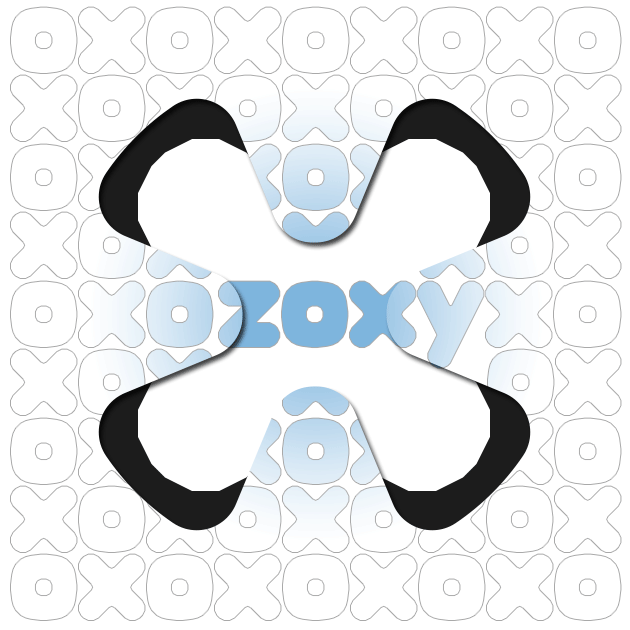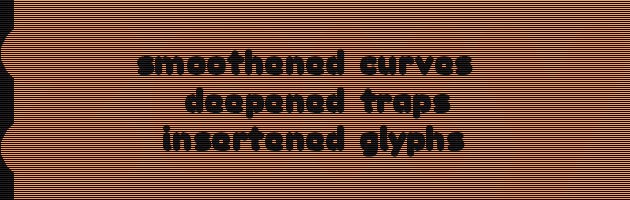
A very nice animated sample :D
This looks nice...
catchy sample!
cool
Amazing
@ex-reated Love the sample!
Congratulations! FontStruct Staff have deemed your FontStruction worthy of special mention. “zoxy” is now a Top Pick.
Fat sans serif face with rounded (fine polygonal) shapes. There are so many excellent glyphs with perfect proportions and composition (A, H, K, L, M, N, T, V, W, X, Y, Z, h, k, l, v, w, x, y, z, 1, 7, ) one could hardly count them. The rest of the glyphs are OK, and a few need some polish (capital I: no need for serifs, imho, J: it's a bit odd, e: not legible). Kudos for the animated GIFs and the demo pics that look like fine cut gemstones. 10/10
This font just...
...appeared from nowhere to my world!